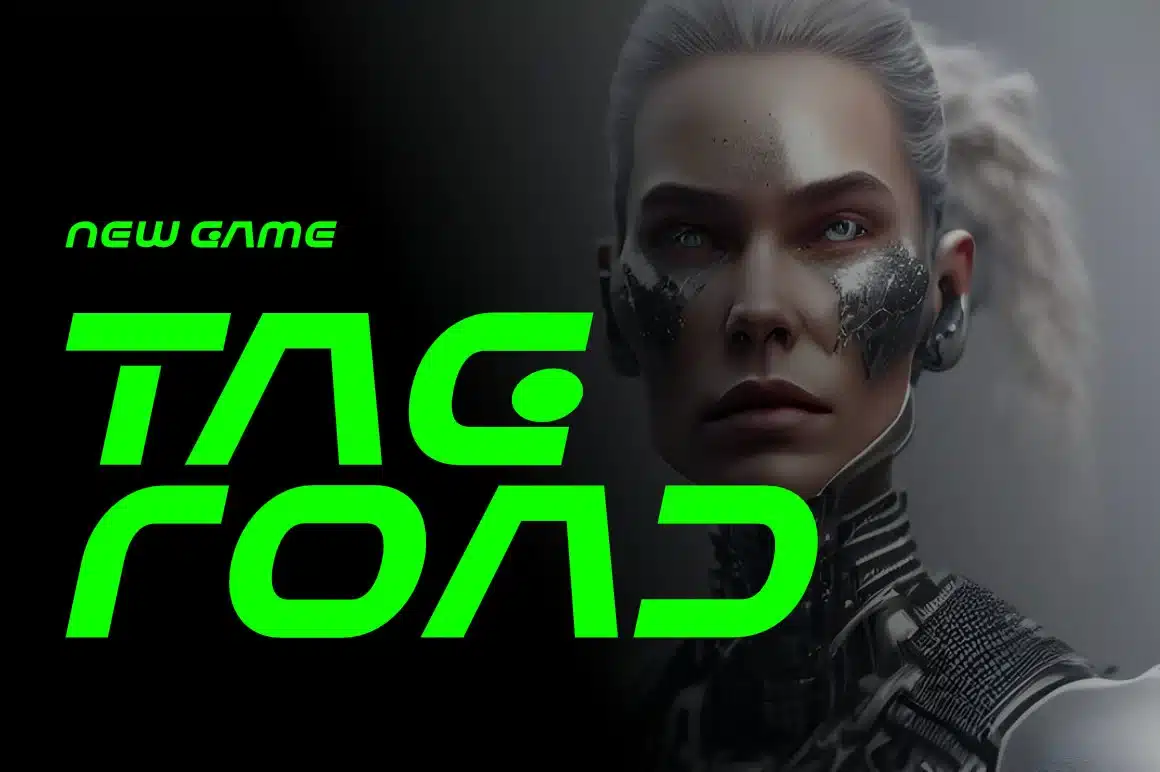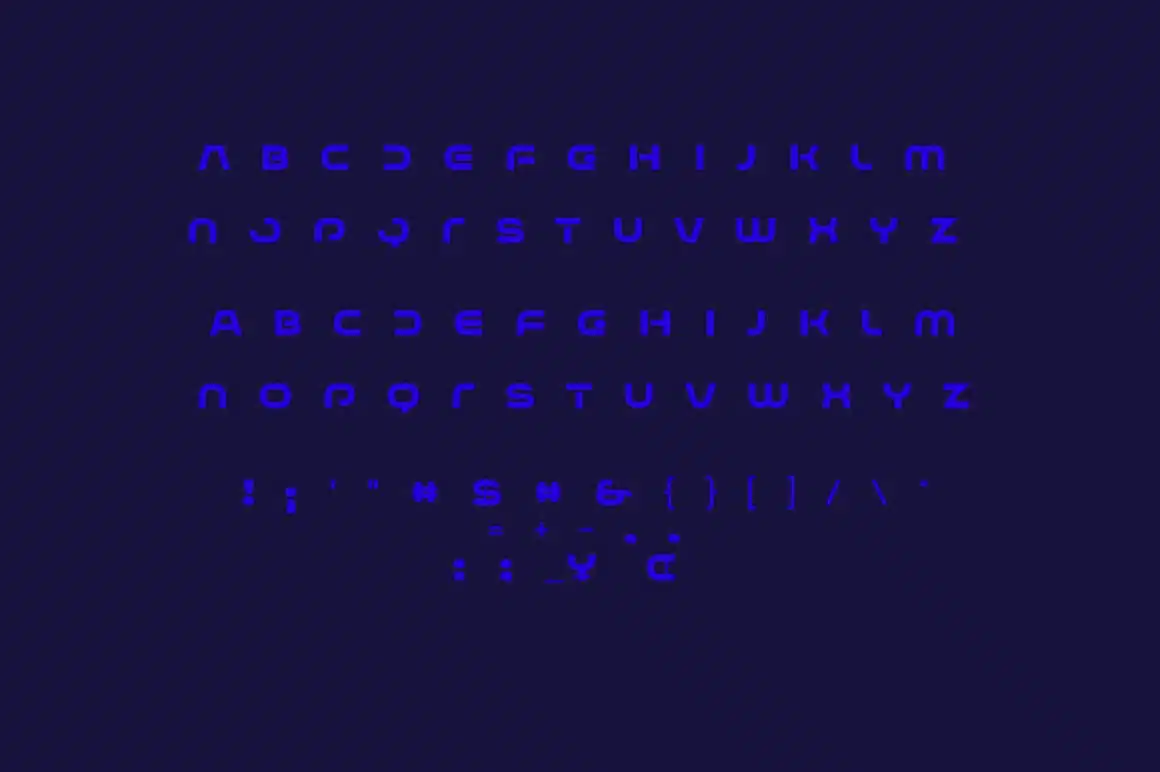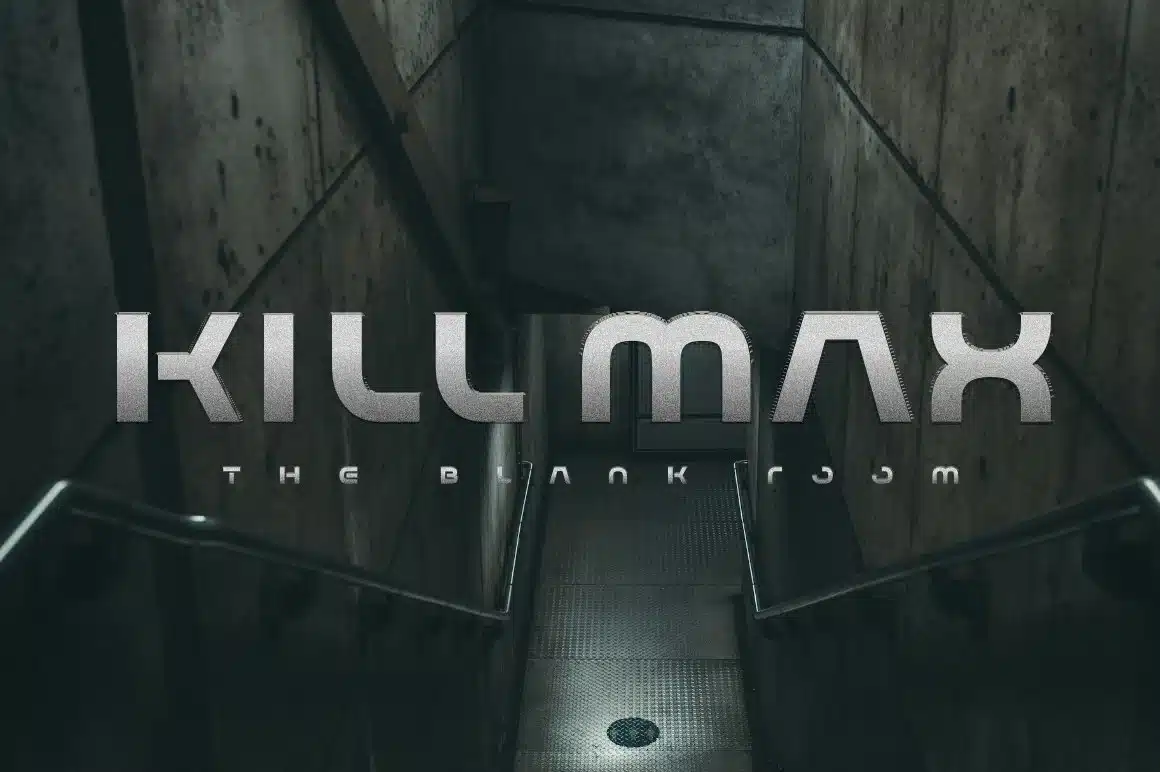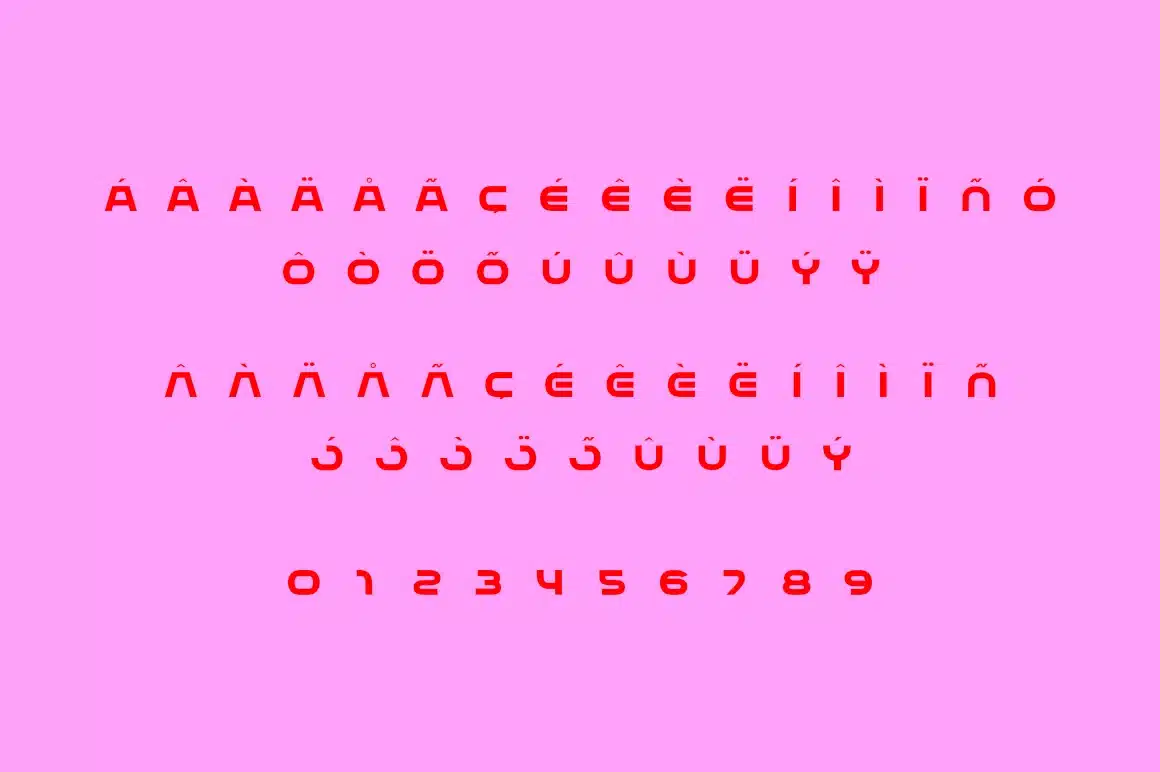
infuses them with the sharp, rhythmic cadence of a computer circuit board. Its vibrant presence commands attention on the screen, using exaggerated proportions to keep things whimsical without losing that polished, professional hardware feel.